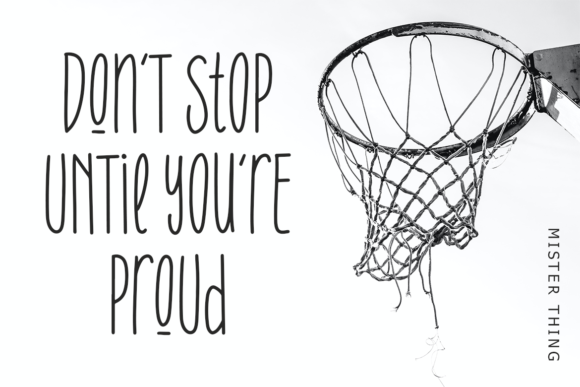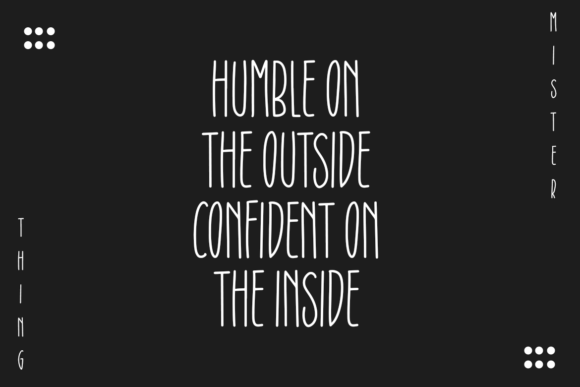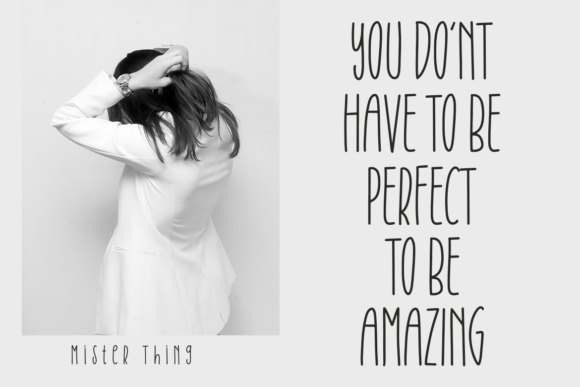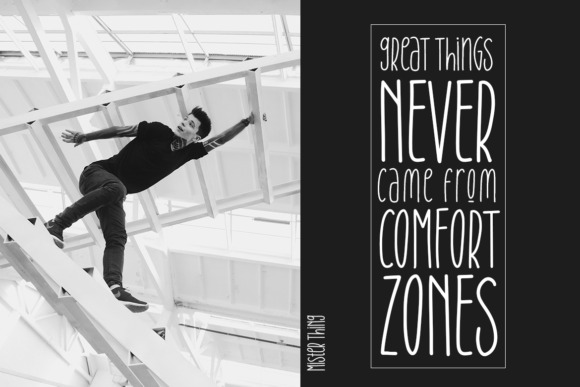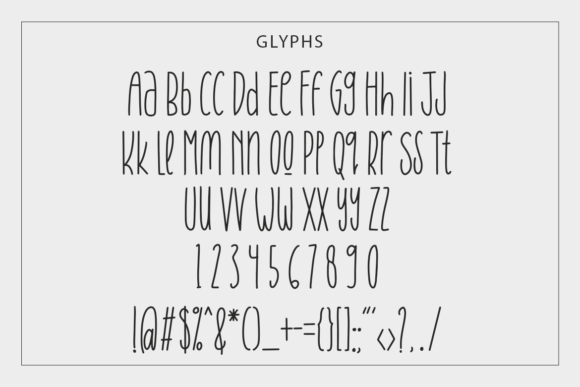
Introduction to Mister Thing Font
Mister Thing embodies fun, quirkiness and authenticity.
This classic display font will turn any creative idea into a true standout .
Key Features of Mister Thing Font
Why Choose Mister Thing Font?
Mister Thing Font offers exceptional quality and versatility, making it a valuable addition to your design toolkit. Whether you’re creating for personal projects or commercial use, Mister Thing Font delivers professional results.